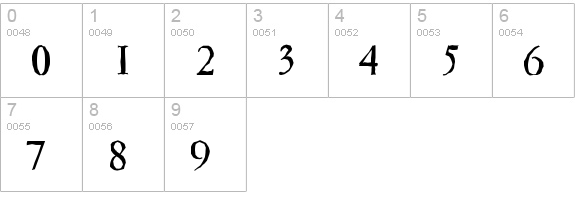
GarfeldAntique Font Details
GarfeldAntique font is a charming and elegant typeface that exudes a sense of vintage sophistication. With its classic serifs and ornate details, this font is perfect for adding a touch of old-world charm to any project. Whether you're designing invitations, posters, or branding materials, GarfeldAntique font will bring a timeless elegance to your work. The best part is that GarfeldAntique font is available for free download at FontsMarket.com. Simply visit the website and add this stunning font to your collection without any cost. Embrace the beauty of GarfeldAntique font and elevate your designs with its timeless appeal.